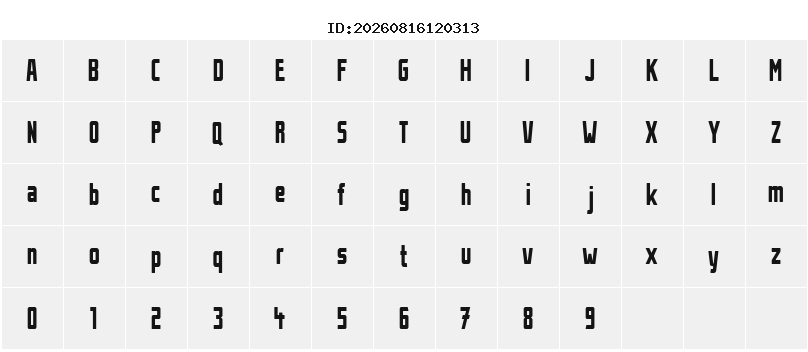
• Font Name: StahlbetontrŠger
• Full Font Name: StahlbetontrŠger-Compressed
• Designer: Nils von Blanc
• Manufacturer: Nils von Blanc
• Description: Stahlbetontraeger is a modified Fonts by "www.nils-von-Blanc.de" 2008. The Font was inspired by Patric Schwarz and his "Stahlbeton" Font. (www.neuefabrik.de) ----------------------------------------- This Font is licensed under a Creative Commons Attribution-Noncommercial 3.0 Unported (http://creativecommons.org/licenses/by-nc/3.0/). You are free: to Share Ñ to copy, distribute and transmit the work to Remix Ñ to adapt the work Under the following conditions: Attribution Ñ You must attribute the work in the manner specified by the author or licensor (but not in any way that suggests that they endorse you or your use of the work). Noncommercial Ñ You may not use this work for commercial purposes. IF YOU WANT TO USE THIS FONT COMMERCIAL: PLEASE SENT A EMAIL TO "VONBLANC@GMX.DE"
StahlbetontrŠger.ttf is a modern, elegant sans-serif font designed for ultimate readability and visual harmony. Perfect for branding, headlines, web design, and print materials.